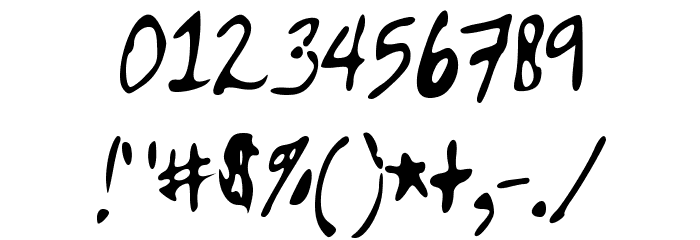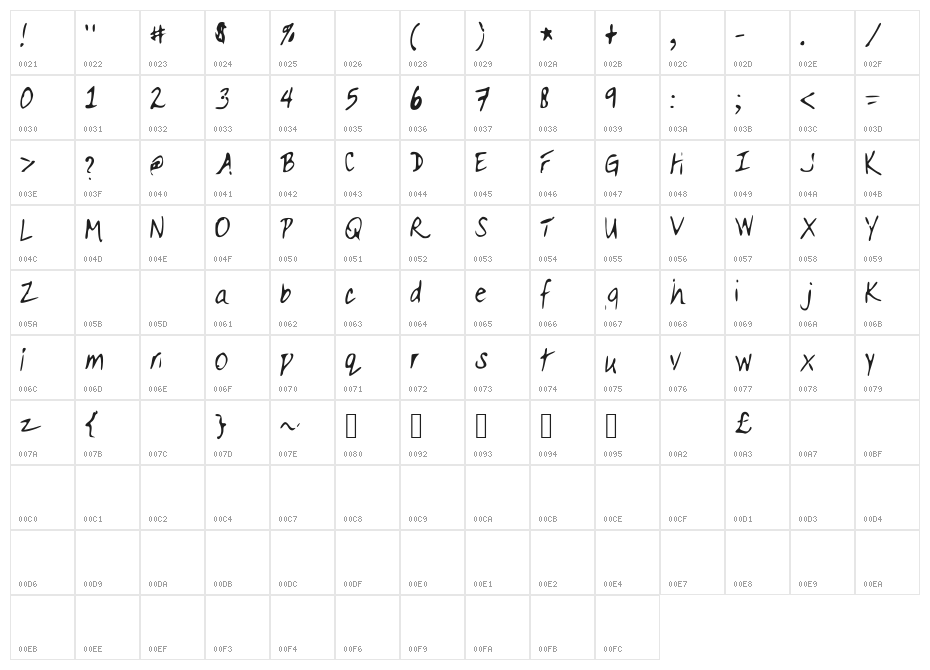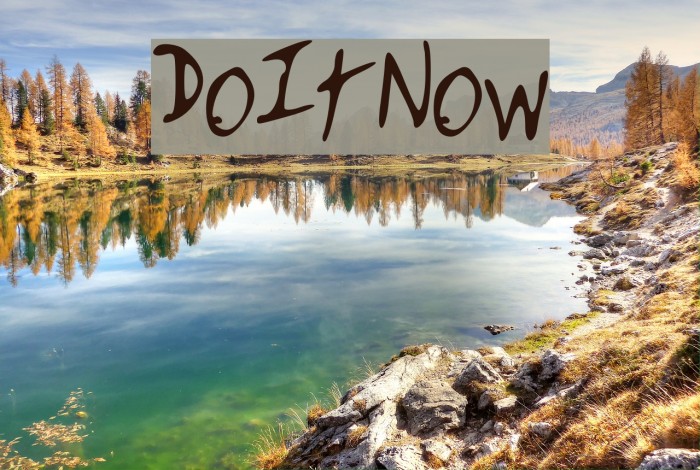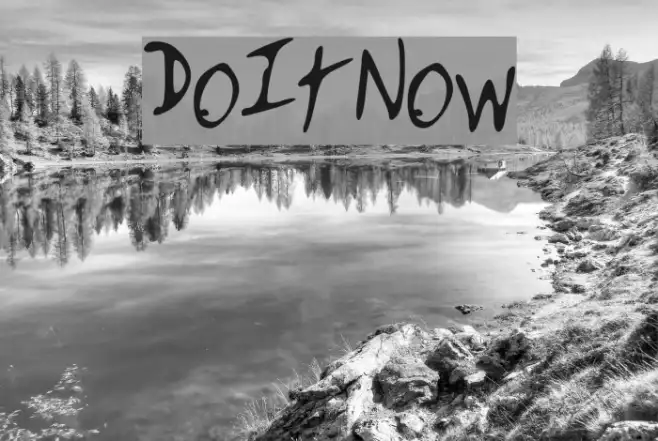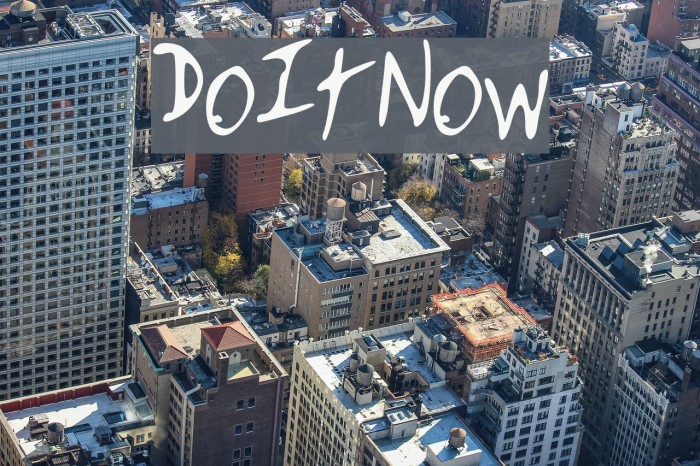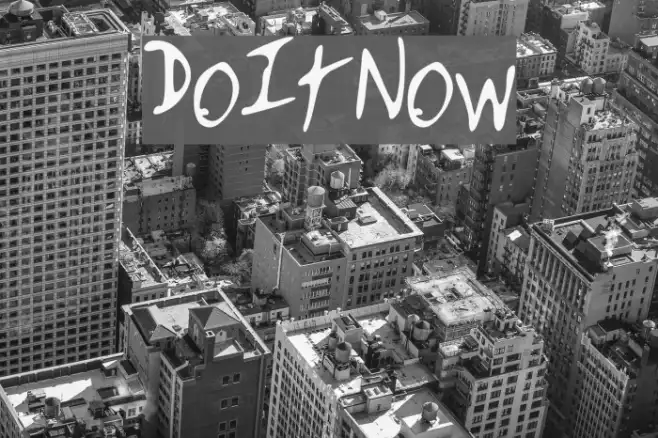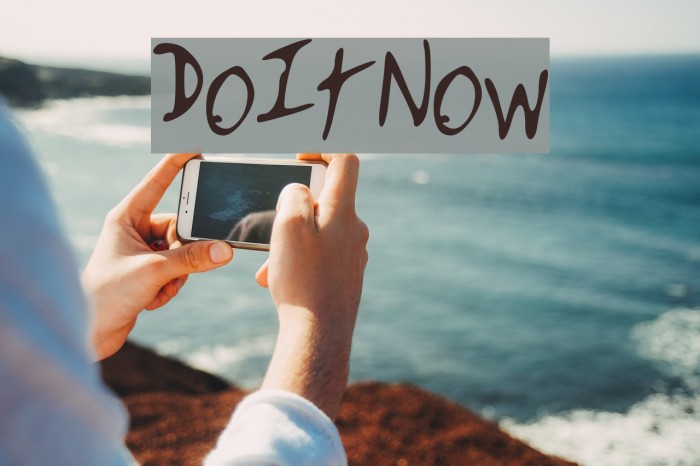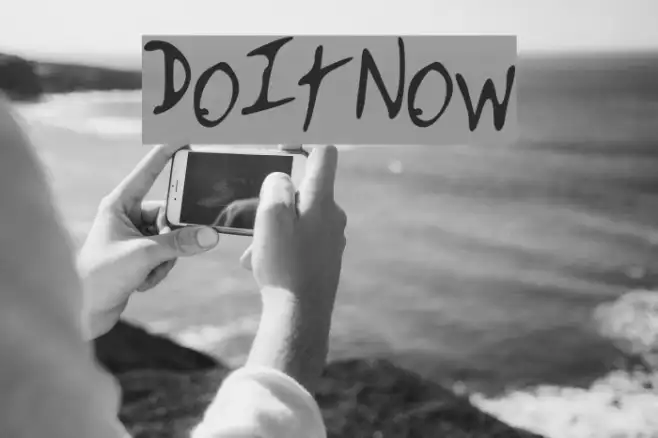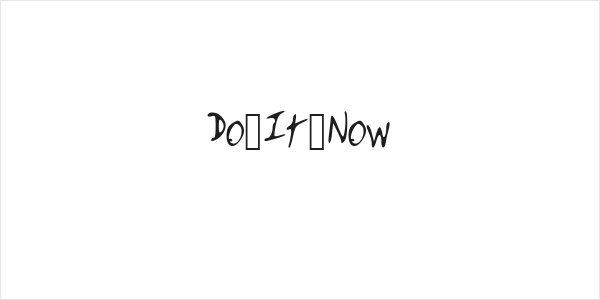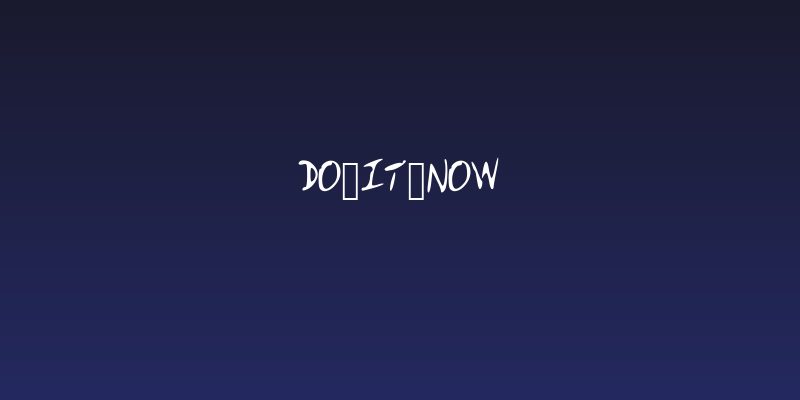
Do_It_Now Font
Do_It_Now Description
This font exhibits a dynamic and energetic handwritten style, characterized by its irregular and playful letterforms. The strokes vary in thickness, giving it a lively and spontaneous appearance. The uppercase letters are bold and expressive, while the lowercase letters maintain a consistent flow, enhancing readability. The numbers and special characters follow the same energetic style, making them stand out. This font's unique character and informal style make it suitable for creative projects that require a personal touch.
| Proposed Projects | Ideal for creative projects such as greeting cards, posters, and personal branding materials. |